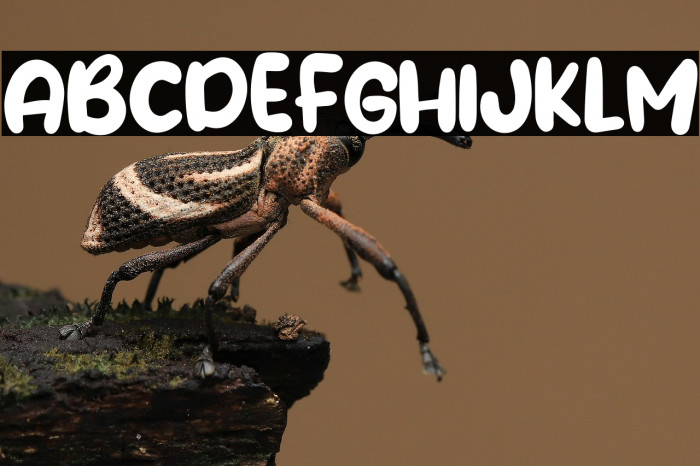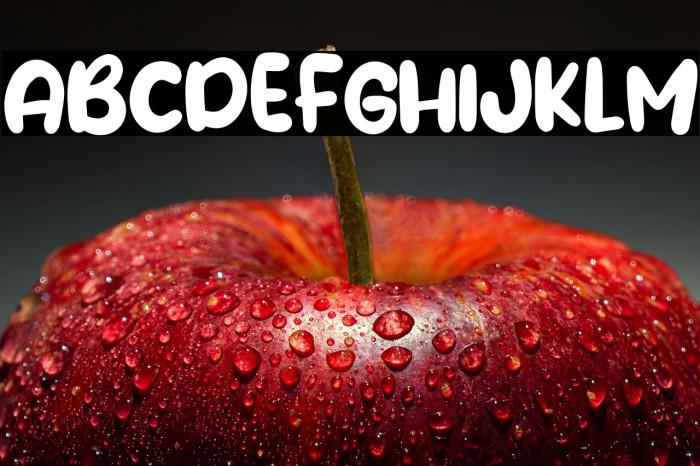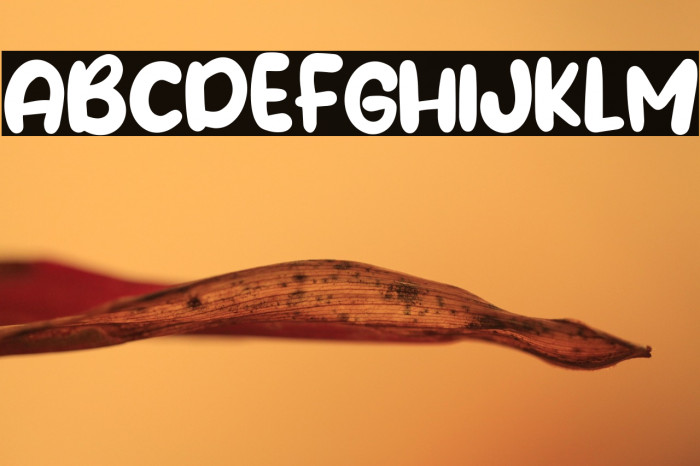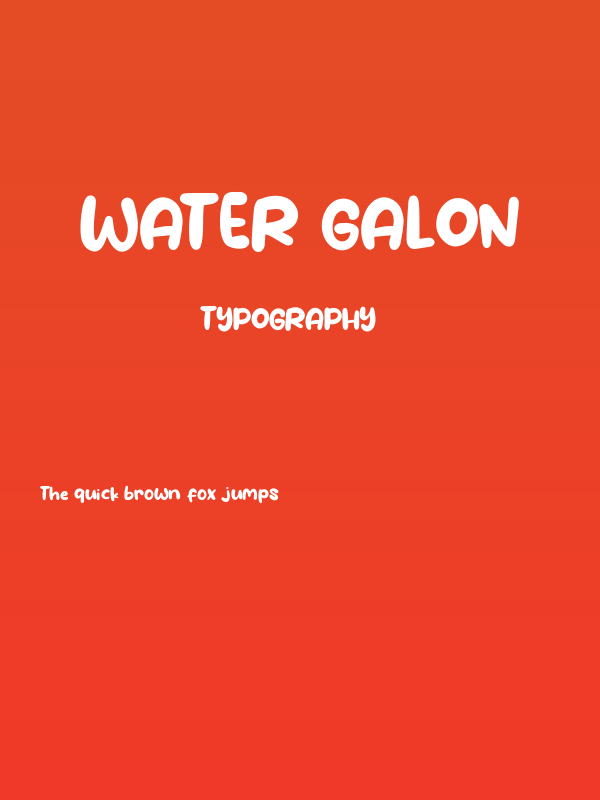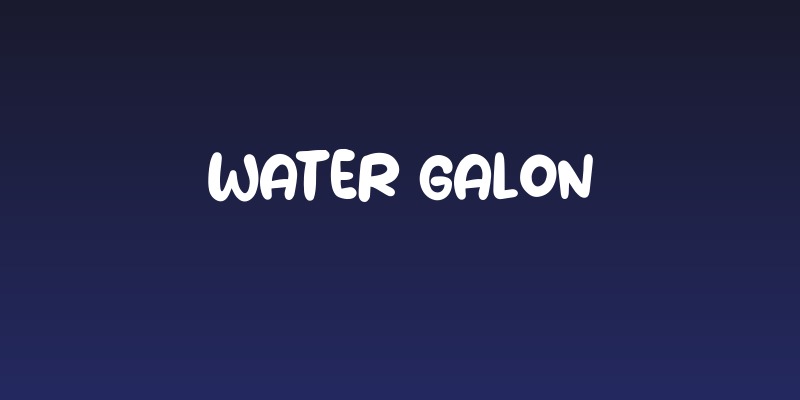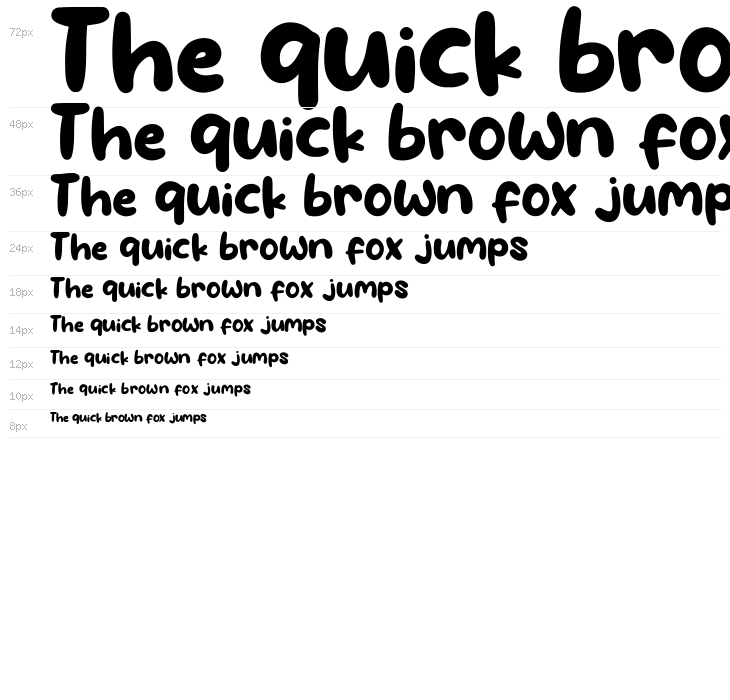
Water Galon Font
Water Galon Description
This playful and bold font features rounded, thick strokes that give it a friendly and approachable appearance. The characters are uniformly wide, with a consistent stroke weight that maintains readability while adding a touch of whimsy. The font's rounded edges and smooth curves create a sense of warmth and informality, making it ideal for casual and fun design projects. The numerals and special characters are designed with the same playful style, ensuring consistency across all text elements.
| Proposed Projects | Ideal for children's books, playful branding, casual invitations, and fun social media graphics. |